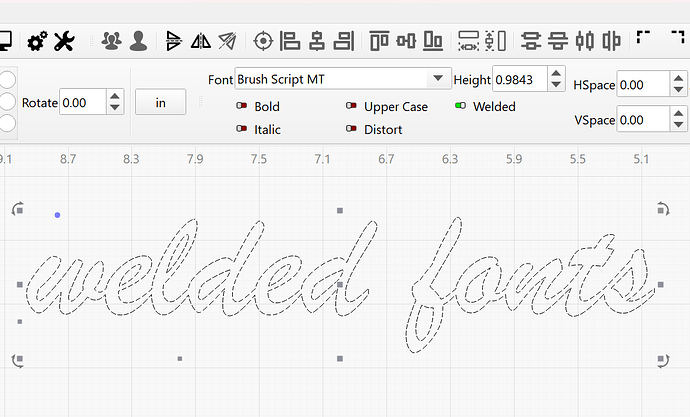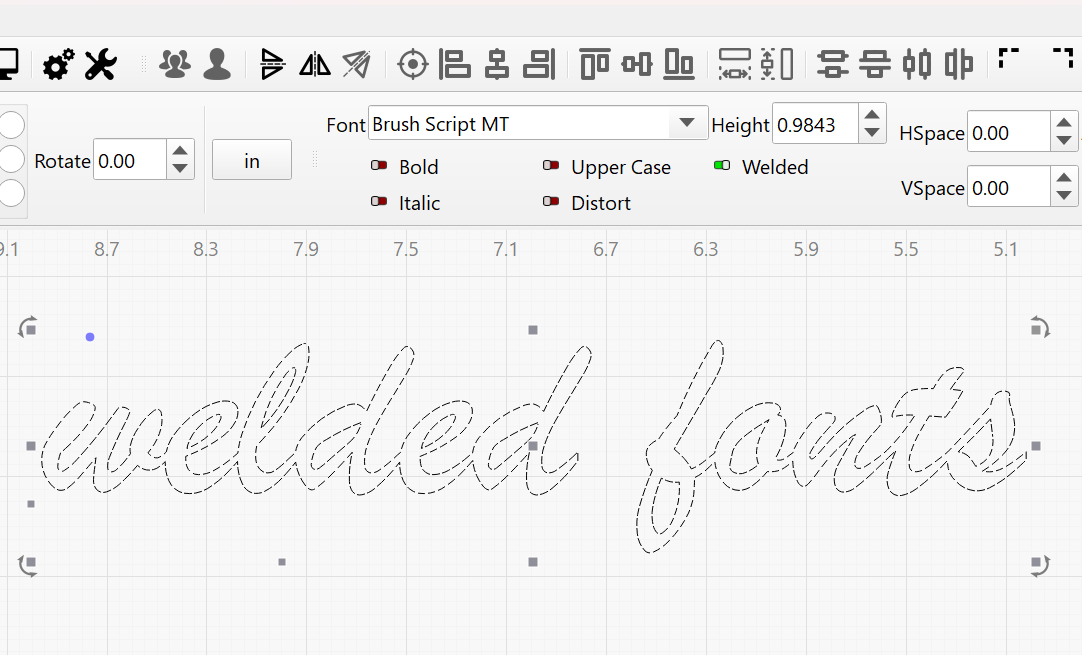
Connected Fonts Generator
I do feel obliged to remind everyone that LightBurn can already connect fonts with the “welded” function.
which can be toggled on the text toolbar.
Some good and useful fonts there. These are great when you need all your text to cut out as a solid piece.
On a quick look, I suspect you will need to “weld” quite a lot of them as well to get rid of the overlaps in some of them.
That’s not been my experience. I installed a few of them and when used in lightburn I don’t see any overlaps and no welding is required. Here’s ones i have installed without any issues. But i havent tried all of them. The rottweiler is a nice one Sometimes the first capital letter doesnt weld but that may be by design and that would be easy to fix. . Either way i still find them useful.
That’s interesting. I tend to do my design work in inkscape.
When I bring those over I do have to do the weld (either in inkscape or lightburn).
Do you still have to drag the dot for the “I” down so it welds with the rest of the text?